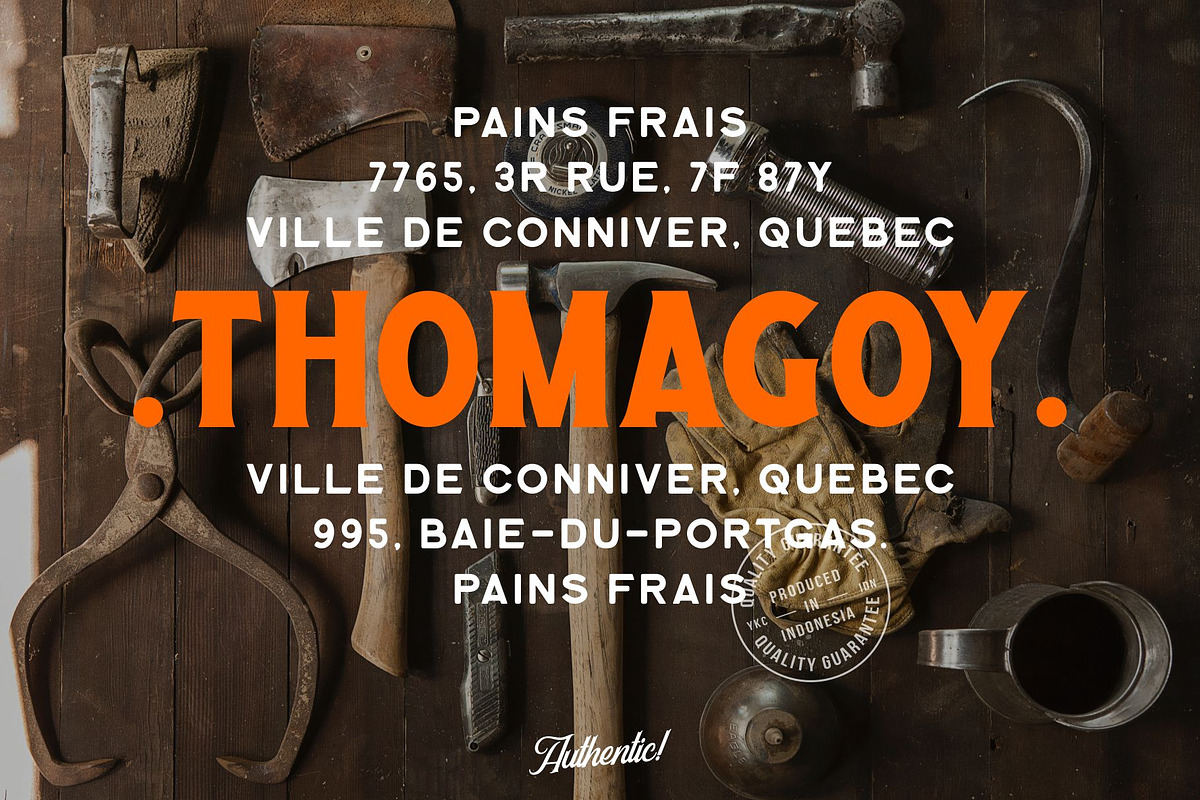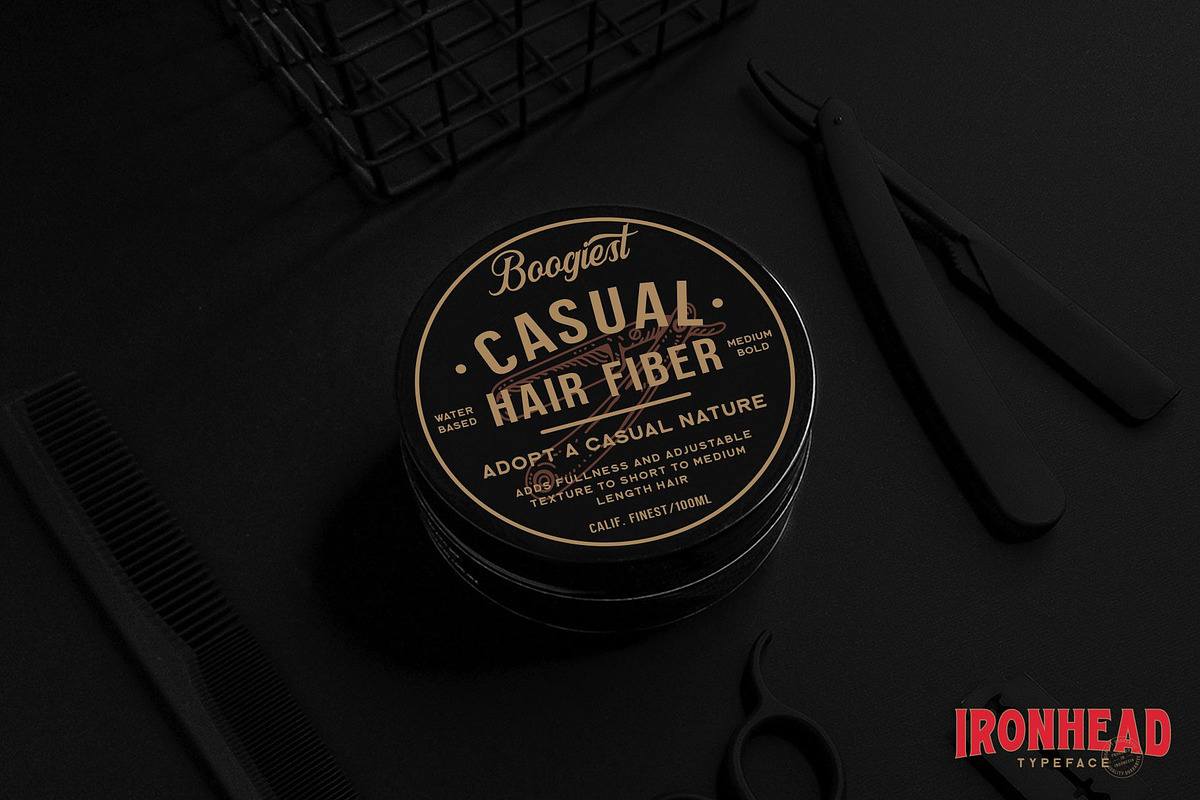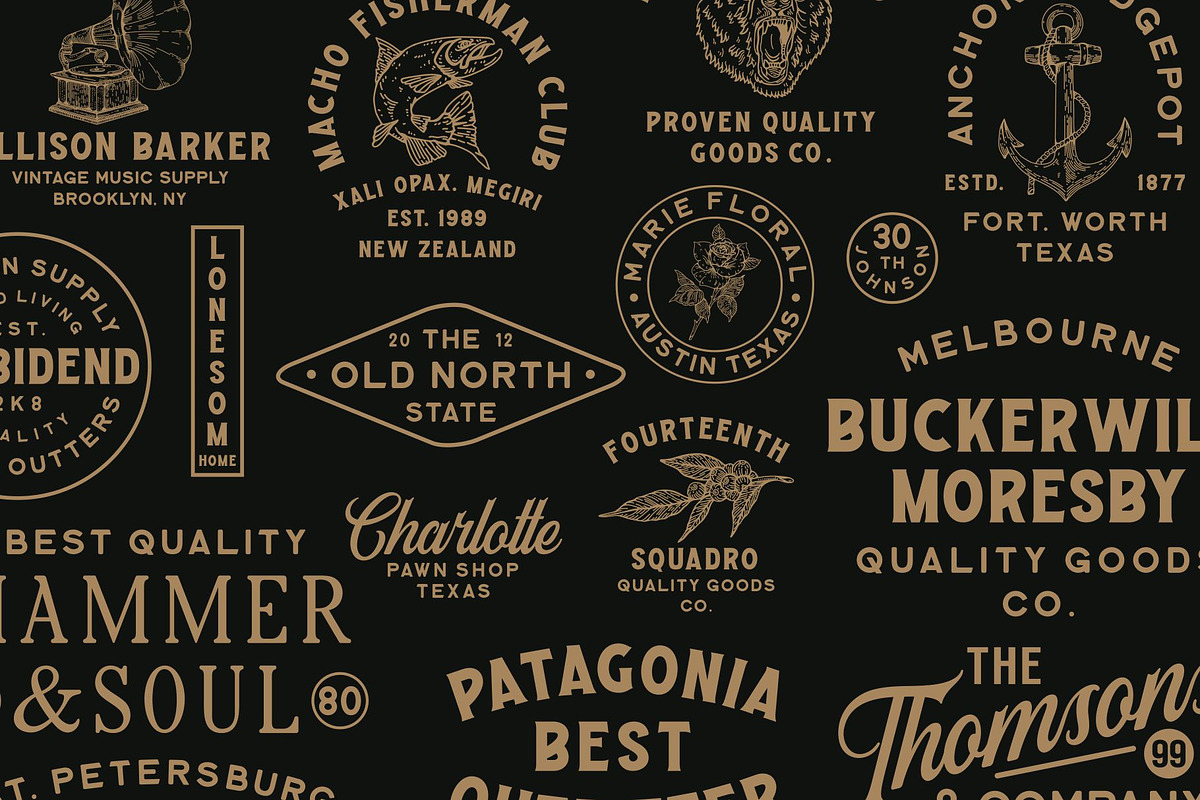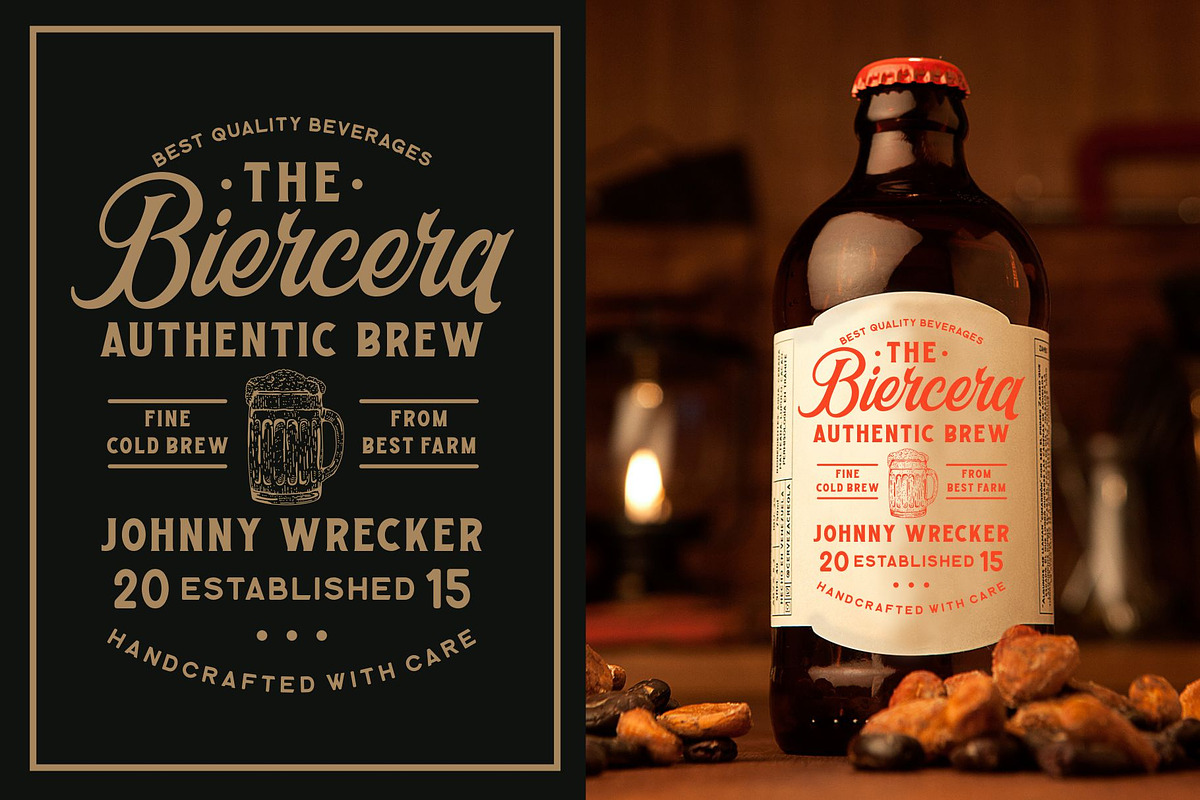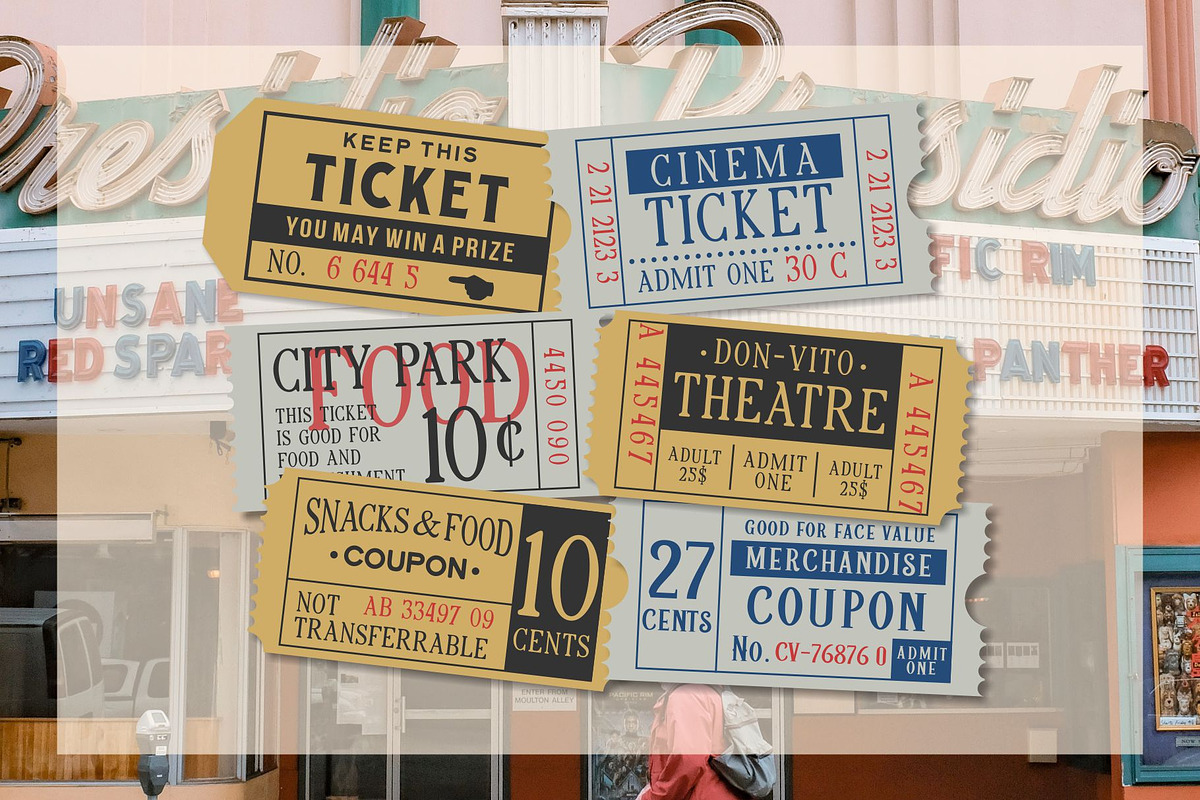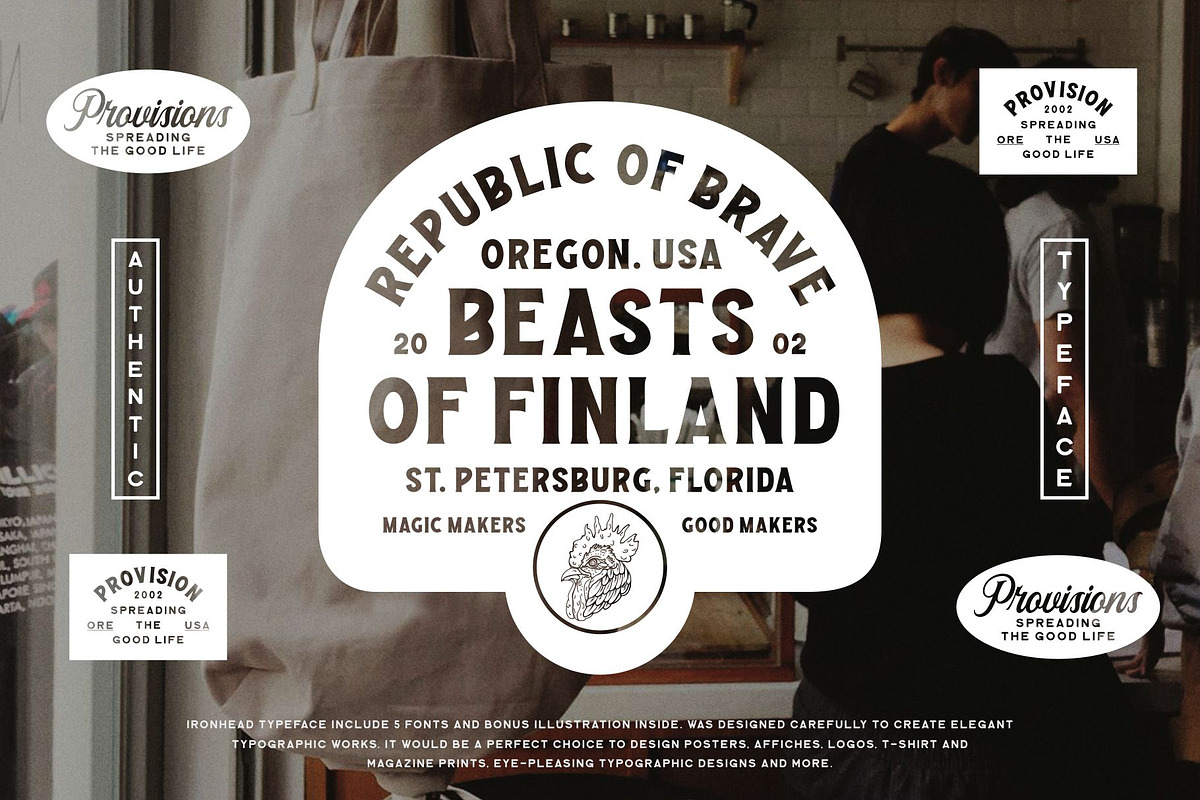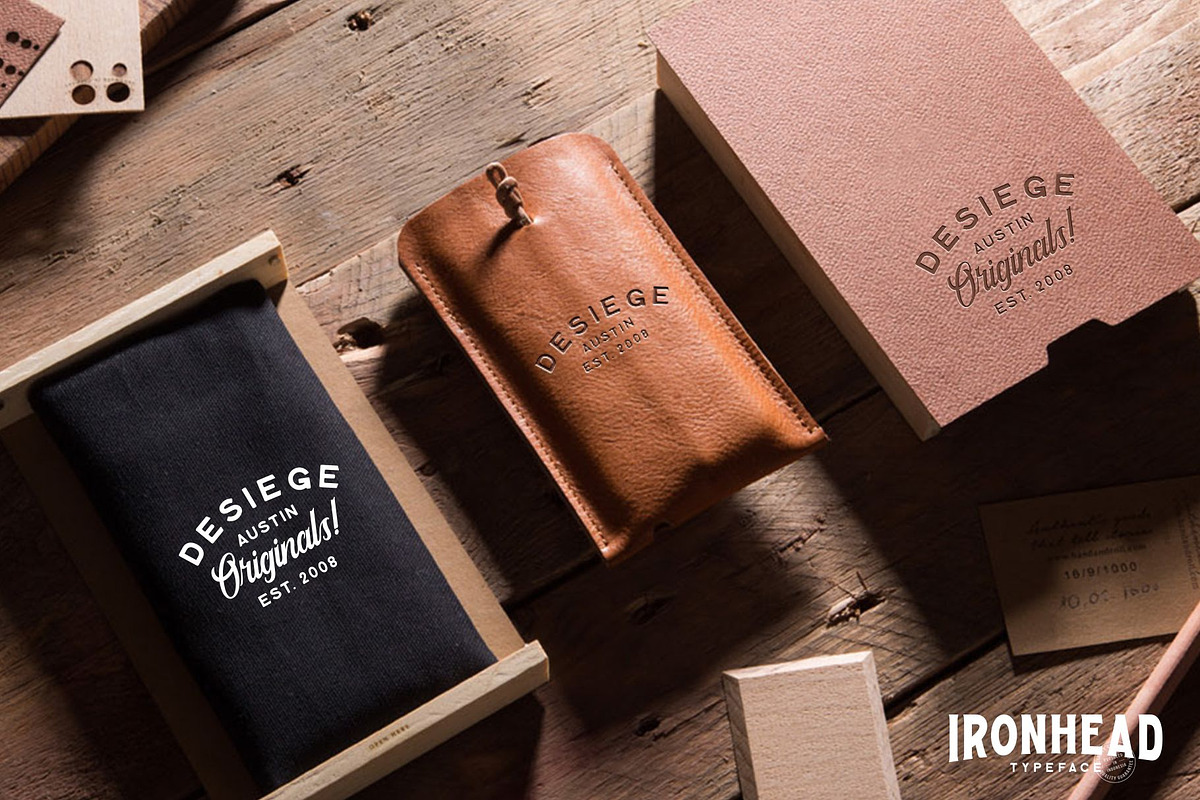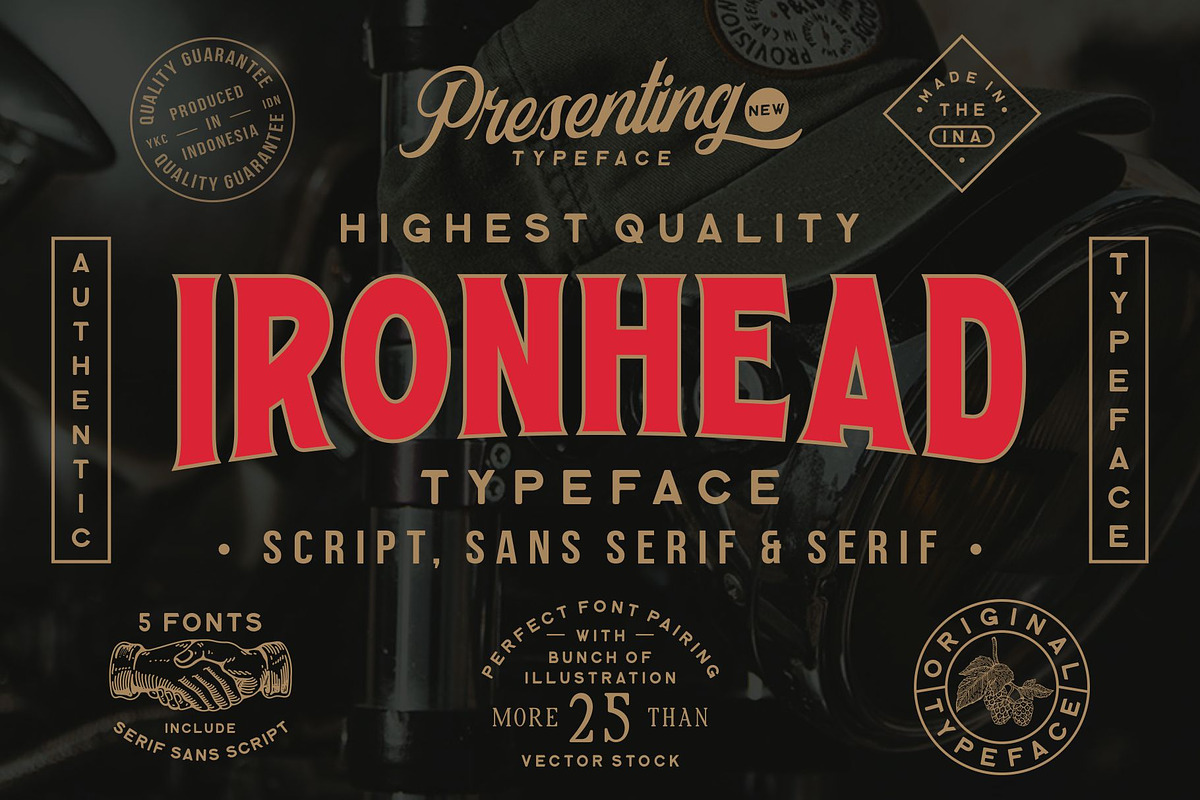
Ironhead Font Collection
IRONHEAD FONT COLLECTION
IRONHEAD is handmade vintage typeface with script, serif and sans serif fonts inside. Inspired by classic western culture, custom culture motorcycle and combining with vintage touch. There's so many fonts that would be perfect to combine in your design, especially on vintage design. With bonus illustration in this package, this fonts are great for logotype, badges, clothing, poster, and much more. This fonts comes with opentype features and adobe illustrator format for illustration pack also many alternative style to improve your design.
Uppercase and lowercase character (only uppercase for sans-serif and serif)
Numeral, Punctuation and Symbol
- With bonus illustration in this package, this fonts are great for logotype, badges, clothing, poster, and much more.
- This fonts comes with opentype features and adobe illustrator format for illustration pack also many alternative style to improve your desig
- Features Uppercase and lowercase character (only uppercase for sans-serif and serif) Numeral, Punctuation and Symbol Stylistic Alternates Op